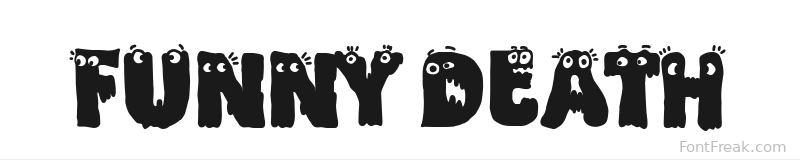
Funny Death
Funny Death is a unique display font created by woodcutter Manero, available for free download. This font falls into the decorative category, characterized by its whimsical and playful design. The letters are bold and rounded, featuring a consistent stroke weight that gives the typeface a friendly, approachable feel. The visual characteristics include exaggerated forms and quirky, cartoonish embellishments, such as wide-eyed characters integrated into some of the letters. This playful approach adds a layer of humor, making it an excellent choice for projects that require a lighthearted touch.
The Funny Death font excels in several specific use cases. It is perfect for children's book covers, where its whimsical nature can engage young readers. Additionally, it can be used for Halloween-themed party invitations, adding a fun twist to spooky celebrations. The font also shines in amusement park signage, where its quirky style can capture the excitement of visitors. Restaurant menus that focus on casual dining or family-friendly atmospheres can benefit from the playful vibe of this typeface. Lastly, it is a fantastic choice for social media graphics aimed at content creators looking to add a touch of humor to their posts.
The target audience for the Funny Death font includes graphic designers, small business owners, and content creators who want to bring a sense of fun and personality to their work. This font stands out due to its distinctive character and ability to convey joy and humor, making it a memorable choice for projects that aim to entertain and engage. With its unique design, the Funny Death font free download is an excellent addition to any creative toolkit.